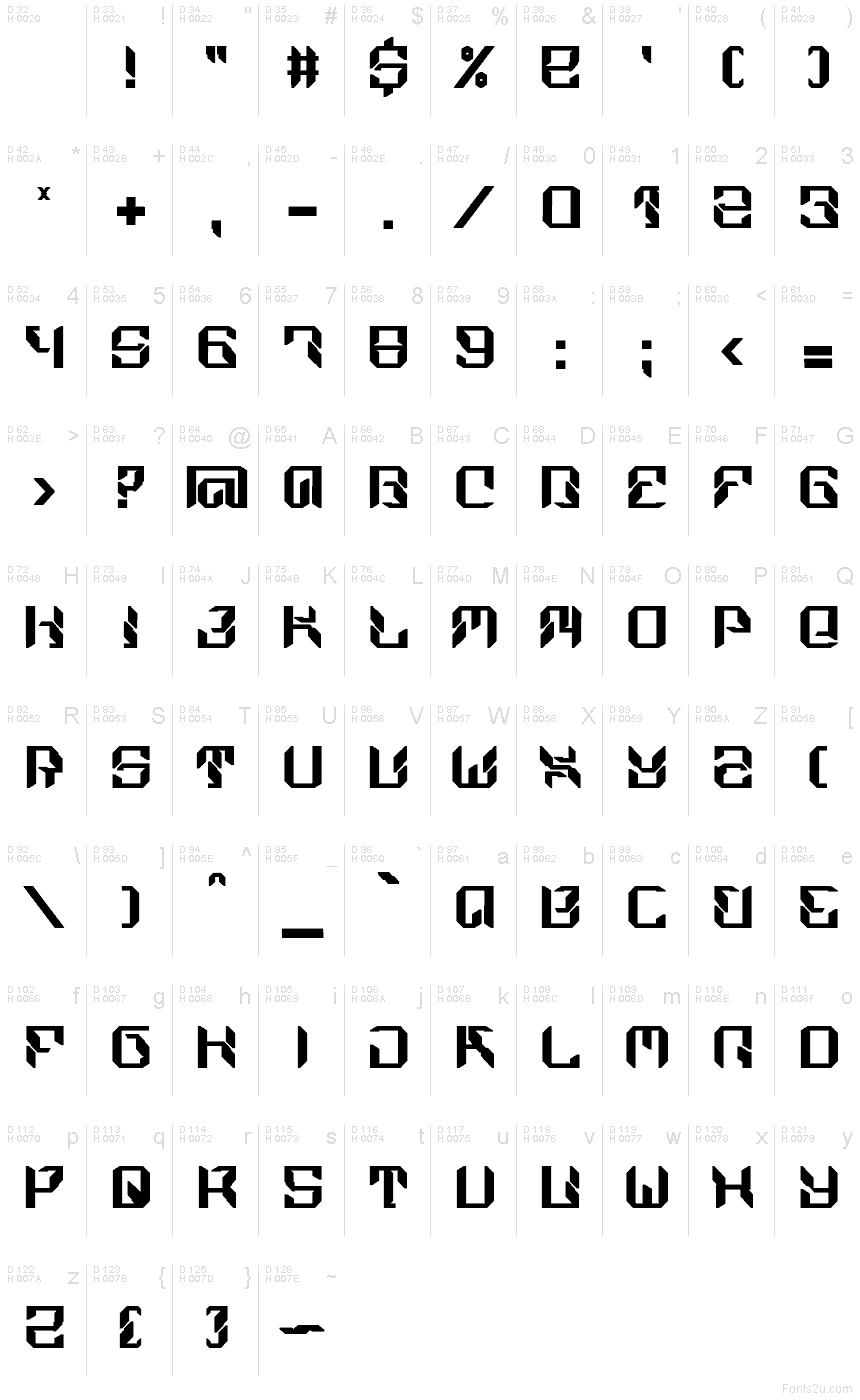
Mechadroid
Mechadroid font by Dhabee Studio is a free futuristic display typeface with a jagged, mech-inspired silhouette that feels ripped from a neon-lit game HUD. Angular strokes, sliced corners, and tight letterforms lock together like armor plates, giving every word a hard-edged, sci-fi intensity. It looks bold and mechanical without becoming unreadable, so you can push it large and let the shapes do the talking.
Using Mechadroid, you can power up game logos, esports branding, sci-fi book covers, tech event posters, cyberpunk flyers, and YouTube thumbnails. This free font shines in all-caps headlines where its geometric rhythm creates a strong, marching cadence. Pair it with a clean, thin sans serif for body text to keep layouts balanced and let Mechadroid handle the heavy, futuristic punch.